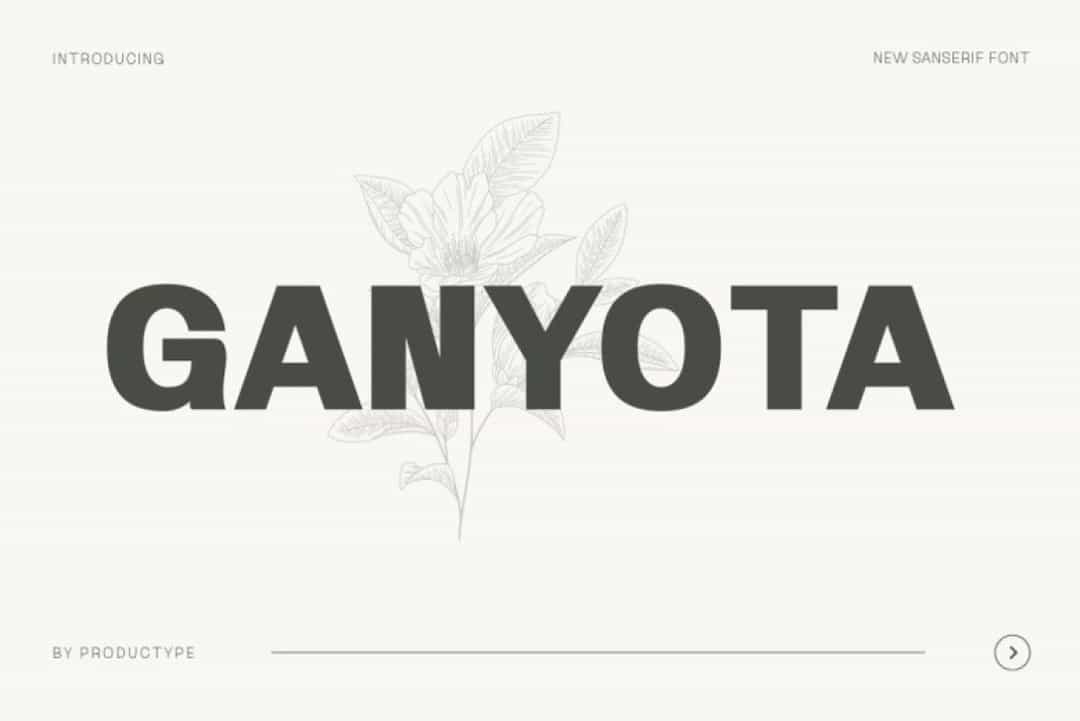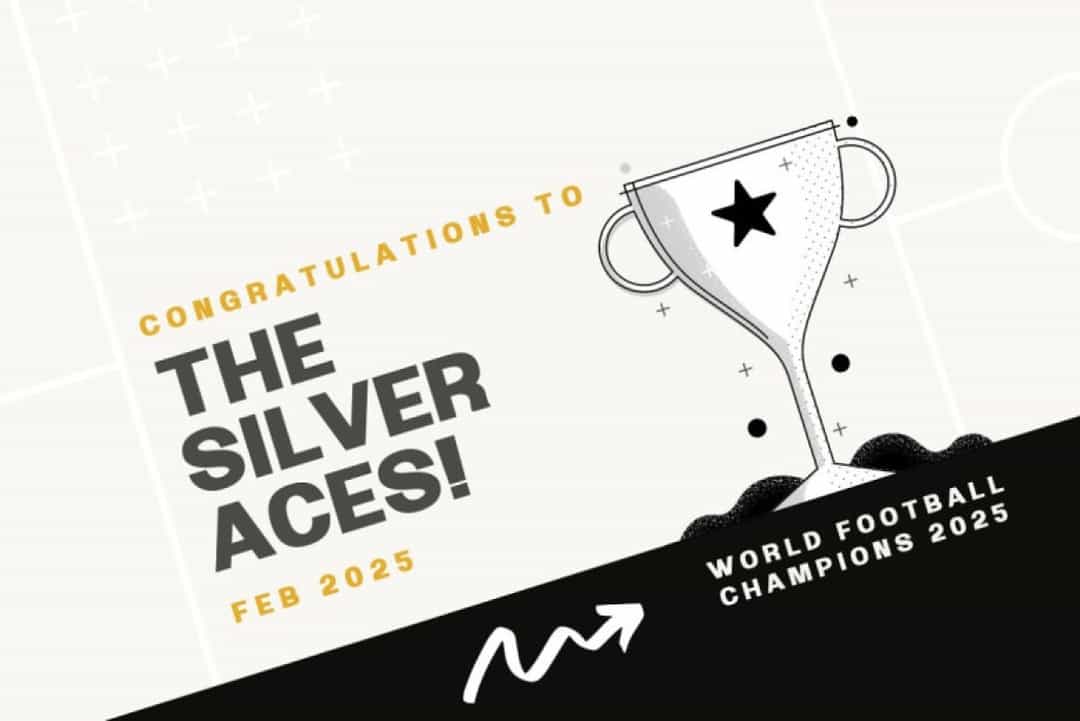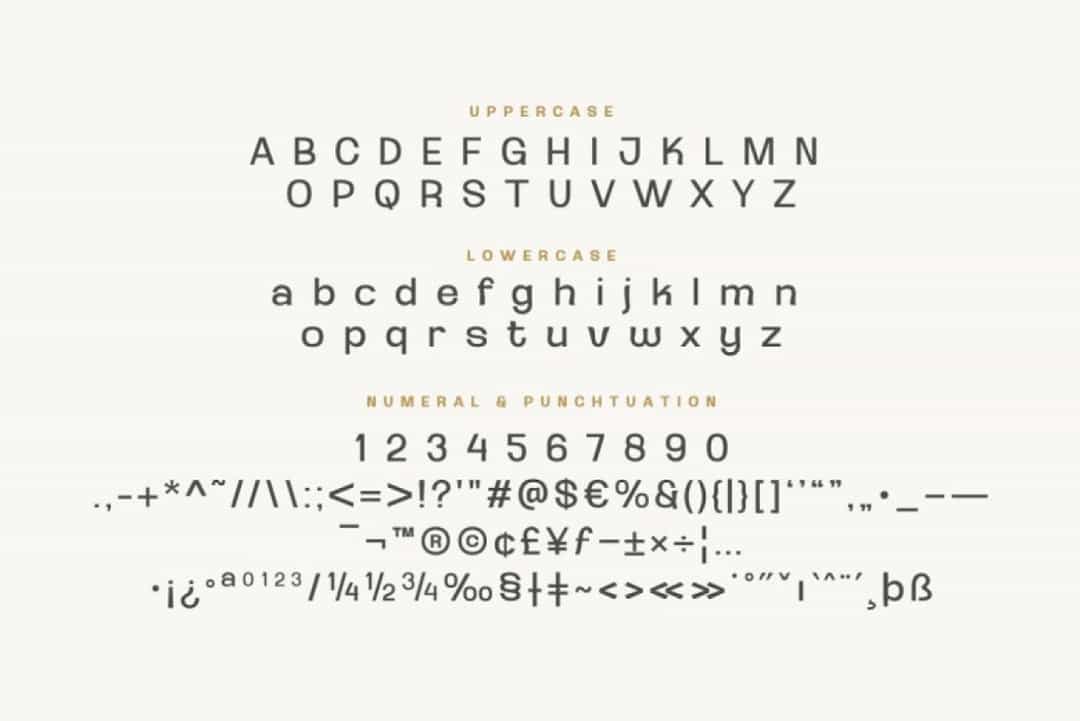
Ganyota Font Family is a beautiful sans serif font ideal for use across a range of display and text sizes, as well as innovative typographic designs. Ideal for adding contrast, hierarchy and impact in branding projects as well as online ads and social media postings like Instagram posts containing quotes shared via this font’s 16 families, make sure it becomes part of your designs now and make your work appear elegant and appealing!